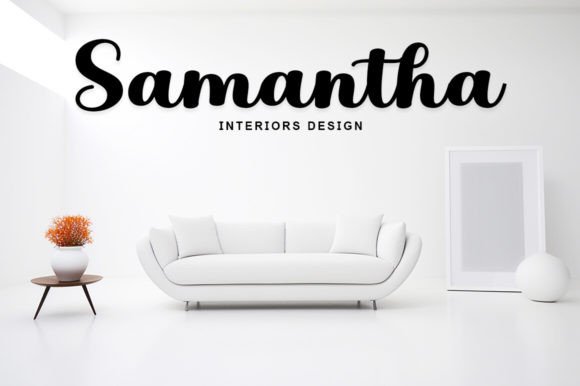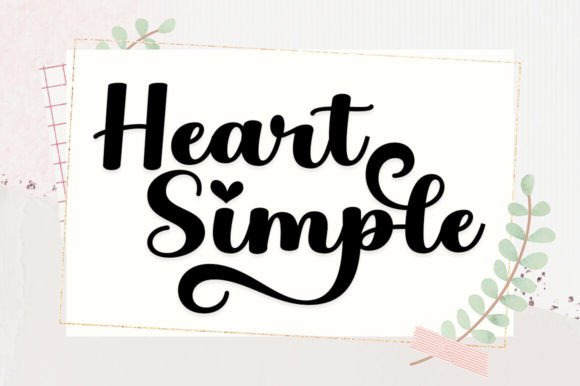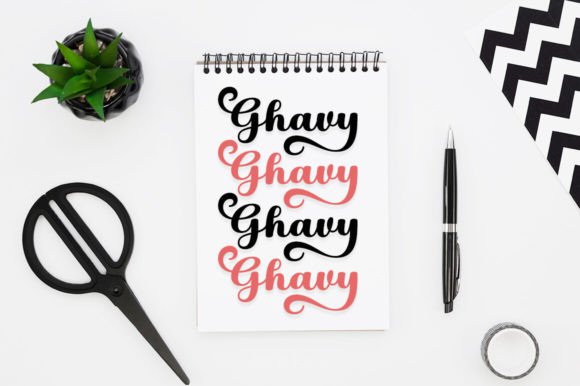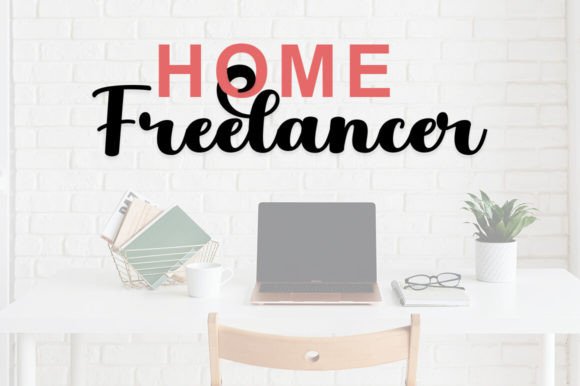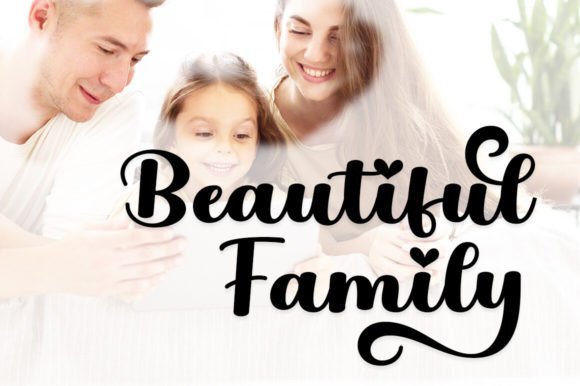
The Sweet Charm of Girly Font: A Designer’s Delight
I still remember the time I was working on a wedding invitation project, and my client asked for a font that was “romantic, elegant, and playful.” I scoured the internet, tried countless fonts, but nothing seemed to fit the bill. That’s when I stumbled upon Girly Font, and it instantly became my go-to choice. The dancing characters, the casual yet elegant touch – it was love at first sight! In this article, I’ll share my experience with Girly Font, its features, and how to make the most of it in your designs.
What I Love About Girly Font
- ✨ Romantic and sweet calligraphy style that adds a touch of elegance to any design
- ✅ Characters that dance along the baseline, creating a playful and whimsical feel
- ⚡️ Versatile and can be used for various purposes, such as logos, wedding invitations, headings, t-shirts, and more
- 🌈 Beautifully crafted to evoke a sense of femininity and charm
While Girly Font is an excellent choice, it’s not without its limitations. For instance:
- 🤔 It may not be the best choice for body text, as it’s more suited for headings and titles
- ⚠️ Some characters may not be suitable for small font sizes, as they can become blurry or hard to read
- Experiment with OpenType features, such as glyphs and stylistic alternates, to add more flair to your design
The Backstory of Girly Font
Girly Font was designed with love and care by a team of talented typographers. The font was inspired by the beauty of handwritten calligraphy and the elegance of traditional wedding invitations. The designers aimed to create a font that would evoke a sense of romance and whimsy, perfect for special occasions and everyday designs.
| Font Name | Girly Font |
| Author | rotterlabstudio |
| What is Girly Font best used for? | Girly Font is best used for headings, titles, logos, wedding invitations, and other designs that require a touch of elegance and whimsy. |
| Is Girly Font suitable for body text? | No, Girly Font is not recommended for body text, as it’s more suited for headings and titles. |